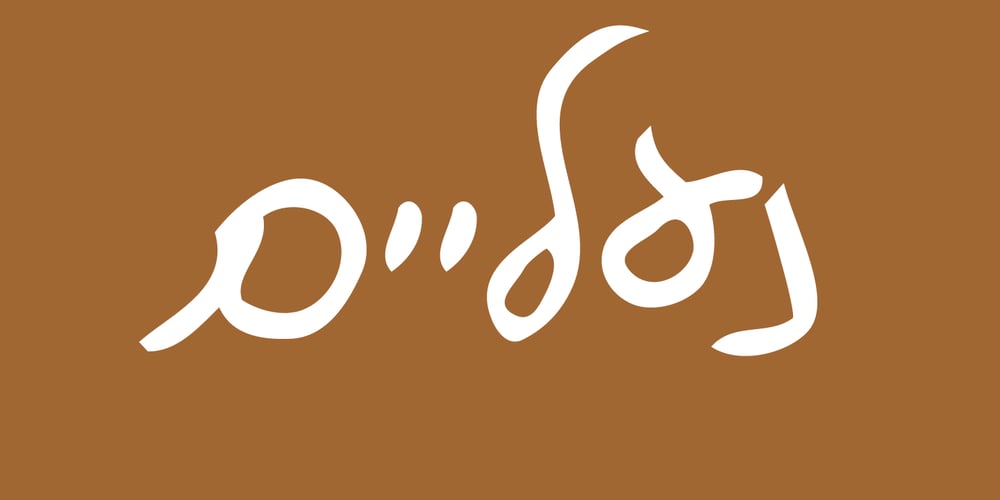
Alifim MF
Alifim MF font
Alifim MF Font Family was designed by Devorah Gaia and published by Masterfont. Alifim MF contains 1 styles and family package options. Happy? Childish? Naughty? Funny? is has it all in a sensitive line stroke.